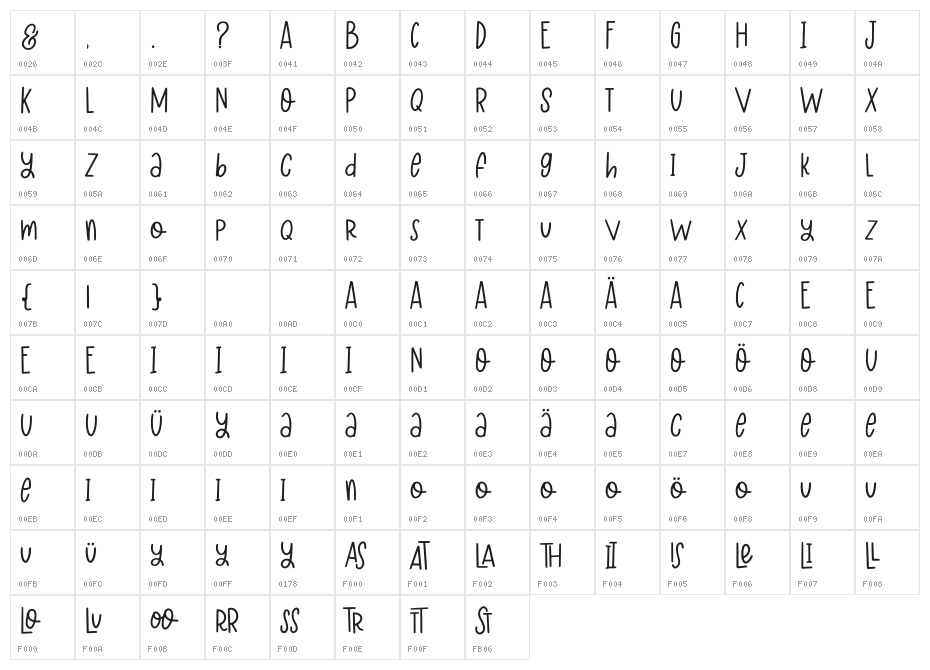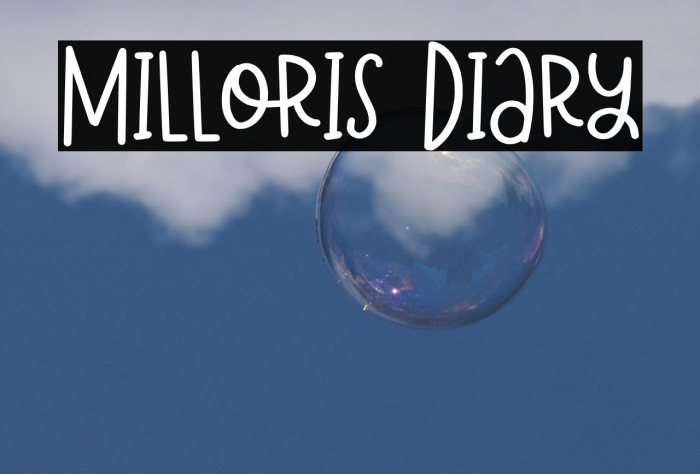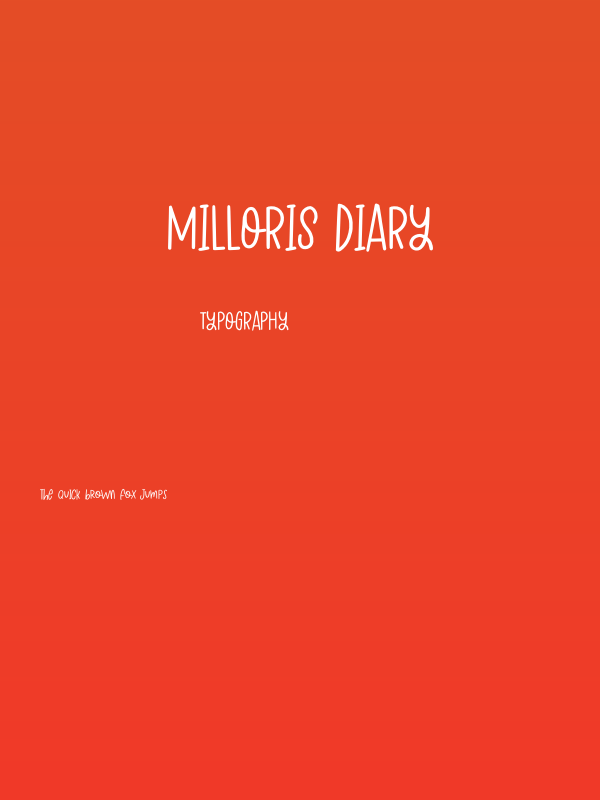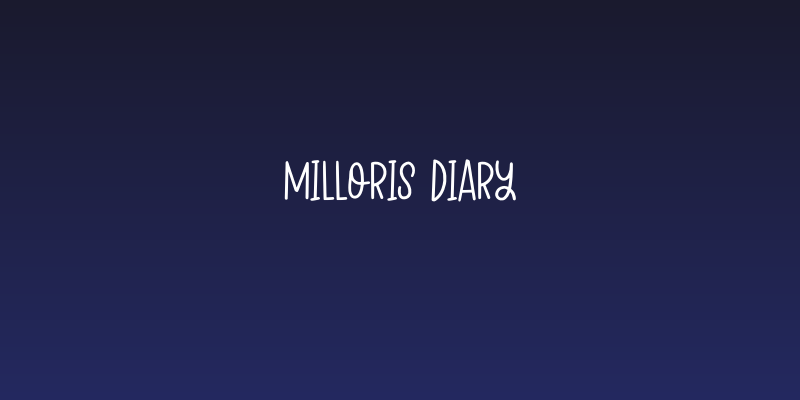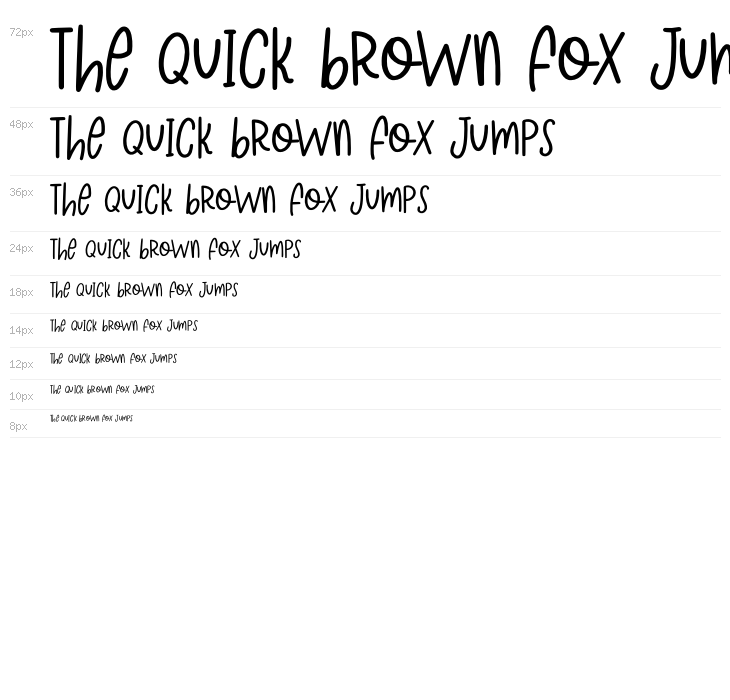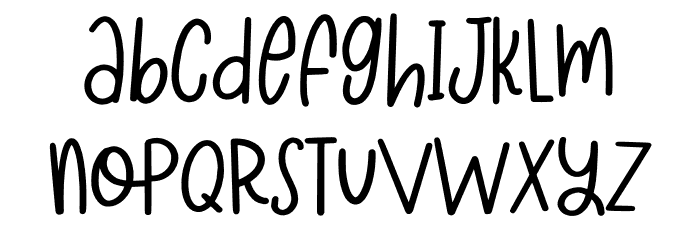
Milloris Diary Font
Milloris Diary Description
This font features a playful and handwritten style, characterized by its tall, narrow letters with a slight slant. The uppercase letters maintain a consistent height, while the lowercase letters have a whimsical, flowing appearance. The strokes are smooth and rounded, giving the font a friendly and approachable feel. The spacing between characters is relatively tight, which enhances its casual and informal vibe. This font includes a full set of uppercase and lowercase letters, numbers, and a selection of special characters, making it versatile for various design needs.
| Proposed Projects | Ideal for greeting cards, children's books, personal blogs, and playful branding projects. |